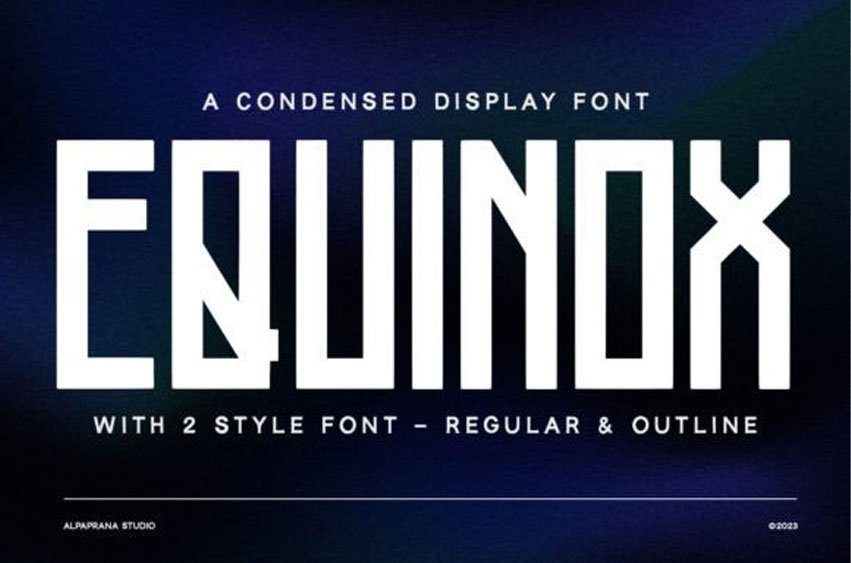
Equinox Display Font is a vibrant and playful display font designed to captivate attention. With its quirky letterforms and dynamic energy, Equinox adds a touch of whimsy to any project.
Perfect for headlines, posters, and creative designs, Equinox infuses a sense of fun and liveliness into every typographic composition it graces.